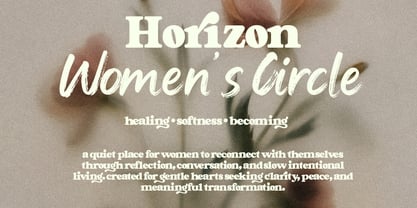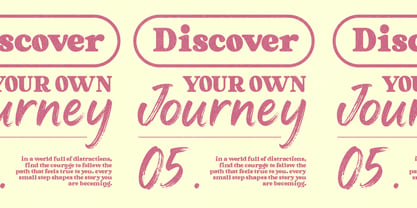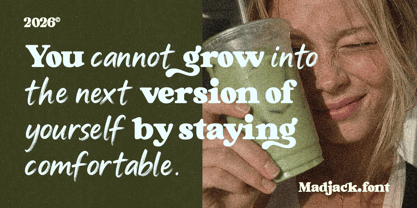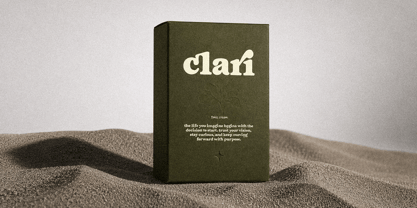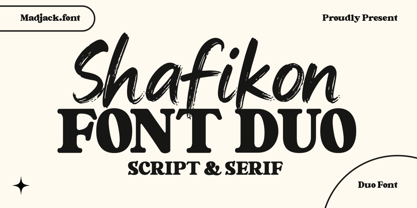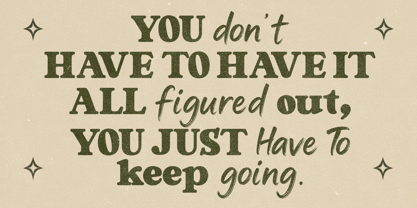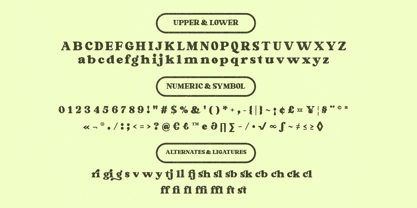
Shafikon Serif
The Shafikon Serif Font Family was designed by Zaki Muhammad and published by madjack.font. Shafikon Serif contains 2 styles and family package options. More about this family
Introducing Shafikon, a captivating duo font that balances classic elegance with modern simplicity. This unique combination consists of two complementary typefaces:
Script Brush Font: A classic, smooth, and flowing handwriting style, perfect for creating an elegant, warm, and personal feel. Ideal for branding, wedding invitations, quotes, and feminine designs.
Serif Font: A capital letter style with a classic, minimalist look. Its clean, versatile design makes it perfect for headlines, logos, and typographic elements that require clarity.
Shafikon is designed to provide flexibility in a variety of design projects. Use both together to create an eye-catching visual contrast.